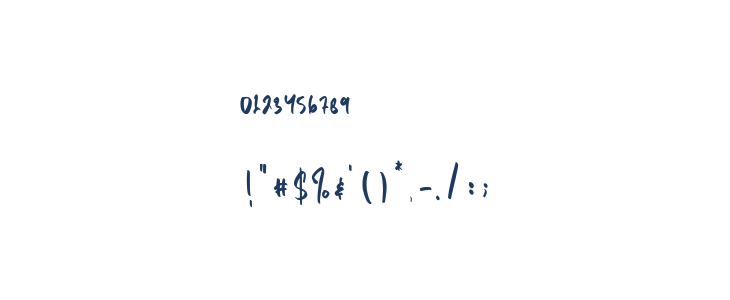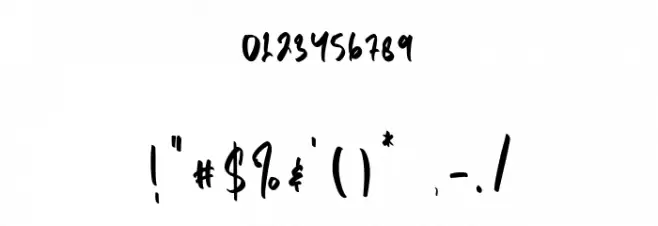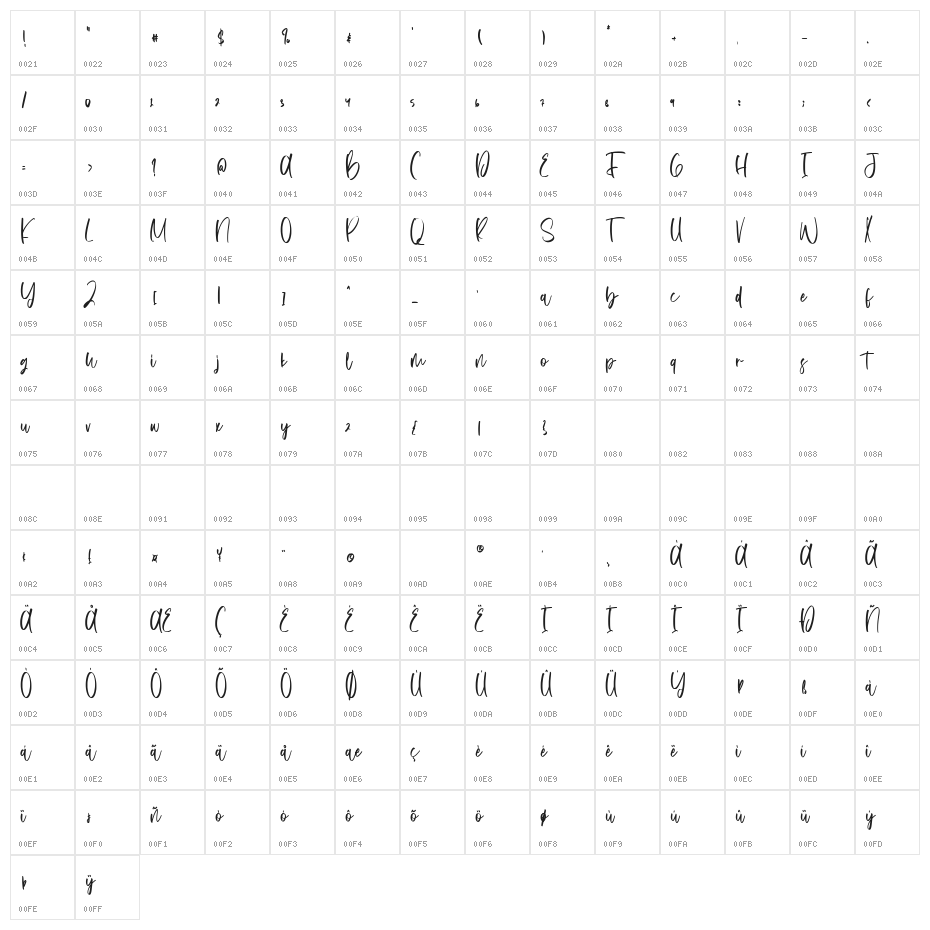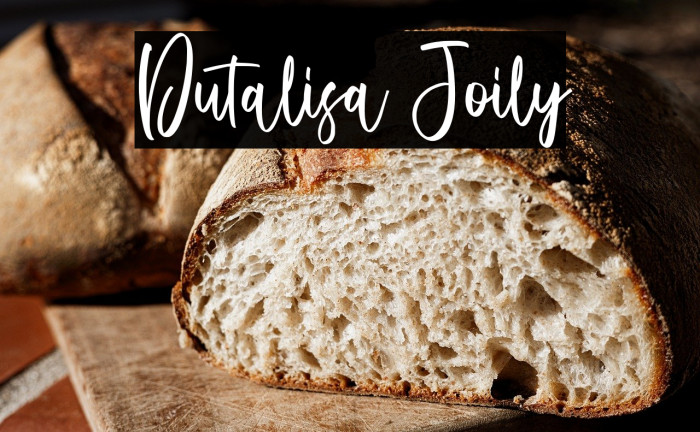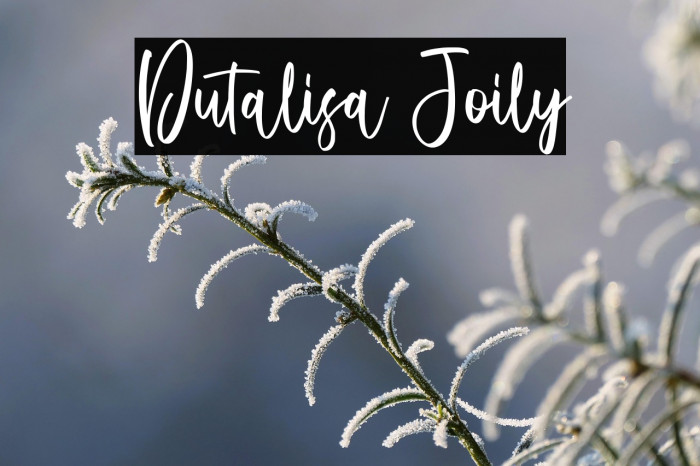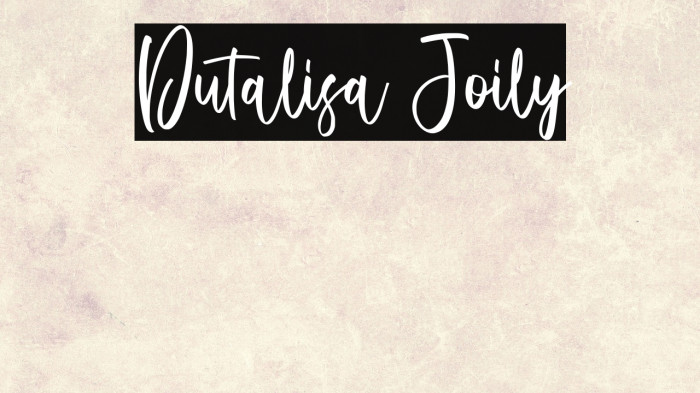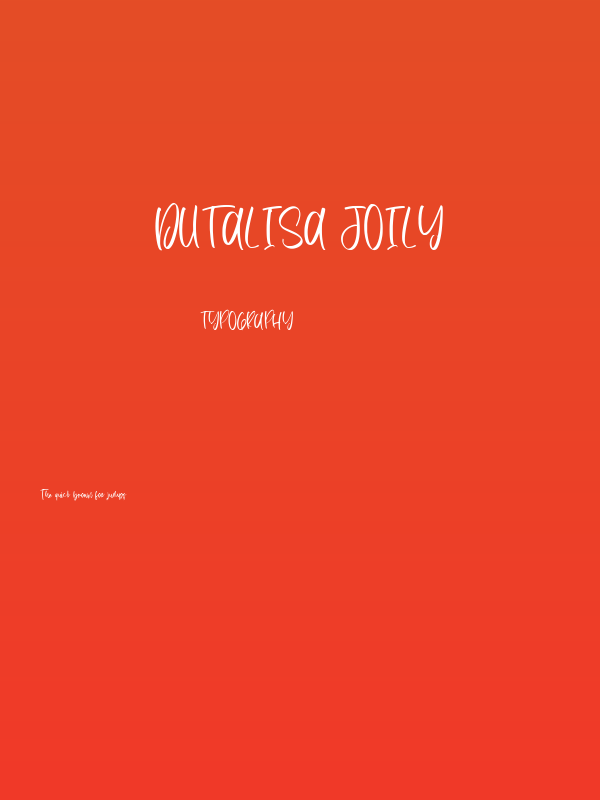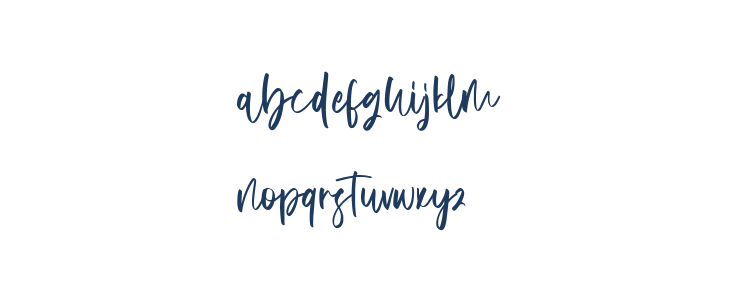
Dutalisa Joily Font
Dutalisa Joily Description
This font features a lively and expressive handwritten style, characterized by its fluid and dynamic strokes. The letters exhibit a playful yet elegant appearance, with varying thickness that adds a sense of movement and personality. The uppercase letters are bold and prominent, while the lowercase letters maintain a consistent flow, enhancing readability. The numbers and special characters are crafted with the same attention to detail, ensuring a cohesive look across all elements. This font's unique charm makes it suitable for creative and artistic projects.
| Use Case | Logos, Headlines, Creative projects |
| Proposed Projects | Ideal for invitations, greeting cards, branding, and social media graphics. |